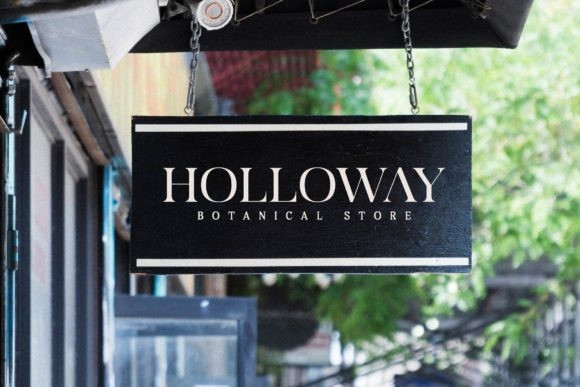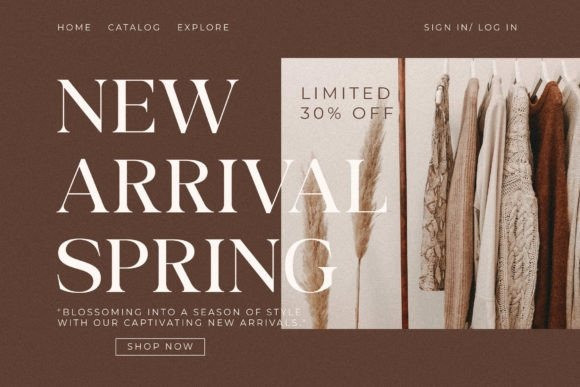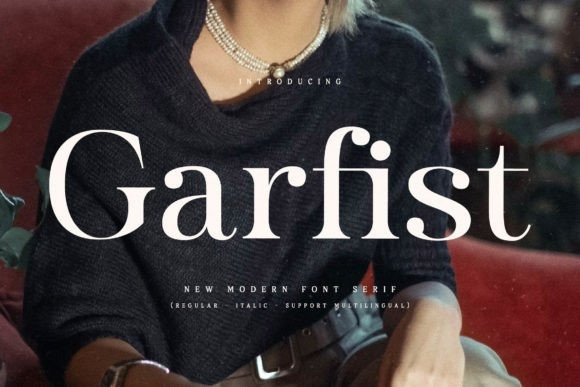
Garfist Font
Garfist Font is a modern and classic serif typeface. It is is perfect for an elegant & luxurious logo, book or movie title design, fashion brand, magazine, clothes, lettering, quotes, and so much more.